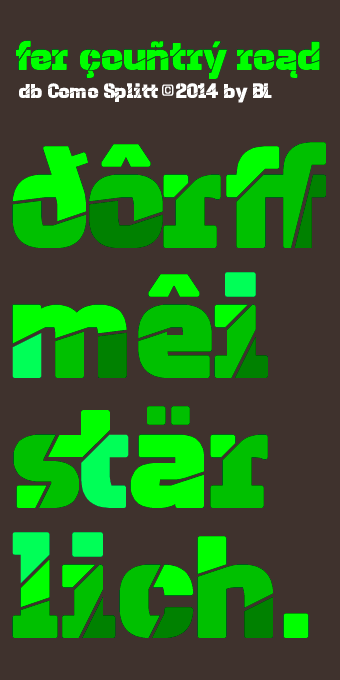
A very cool variant of the original! The S and @ are genius.
Interesting take on a stencil. Just a few more characters to address. Loved the original, this is cool, too.
I love this way!!!
I love too much this way!!!
This is crap!!!
Ha ha, I lie, it's awesome, and once again you take 'The Best Realistic Font Design Award' for the 100th time.
A real pro. I'm not jealous at all. :)
I think it needs a Č/č.
Congrats for the well deserved TP!
Stout letters with pretty oblique cuts. These cuts are wonderfully designed so as to work together and connect adjacent letters. Great work, again. 10/10
very bom !
I love this font great work i would like to have it :)
This is amazing! Reminds me of fs shattern by ETH
You know, beate, it's a delight to have your ideas here on fontstruct. You have a great eye for rhythm and consistency. I said this a couple of times and I don't if you've done it yet, but you should really submit your fonts to a commercial site.
Oh, and I absolutely love the ligatures! ;-)
@laynecom: You don't it or you don't know it?
I don't know it, of course.
Awesome work! very creative stencil
10 is not enought